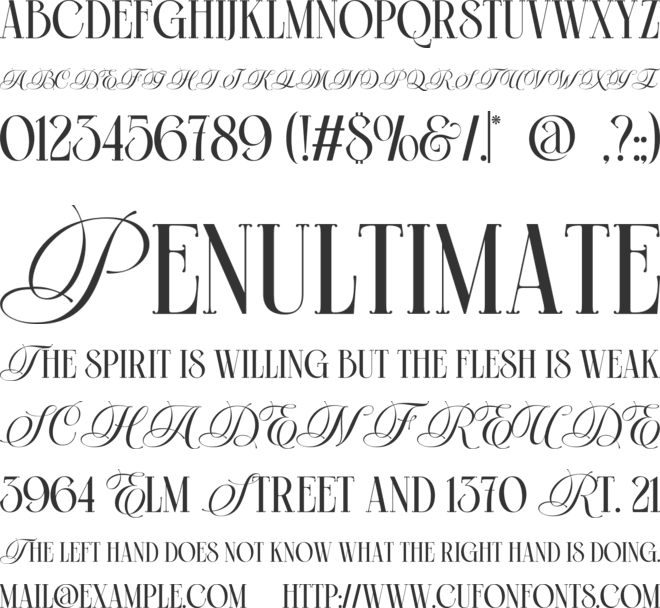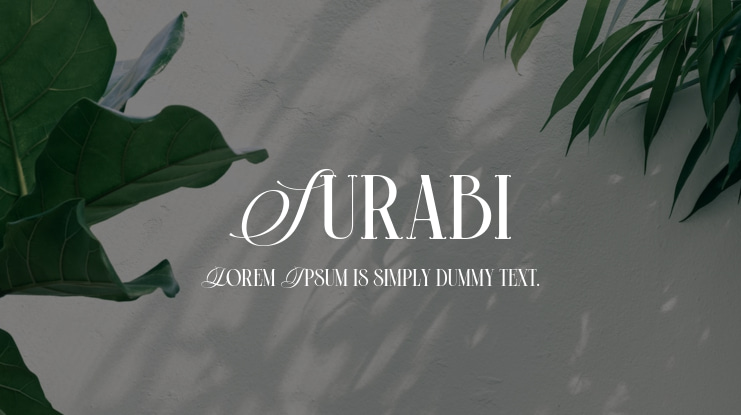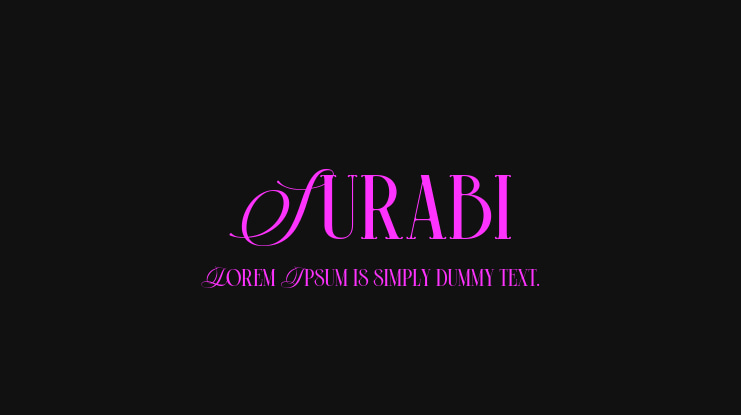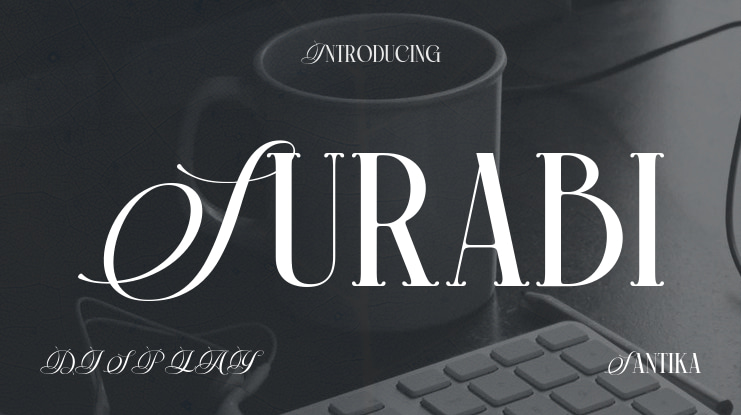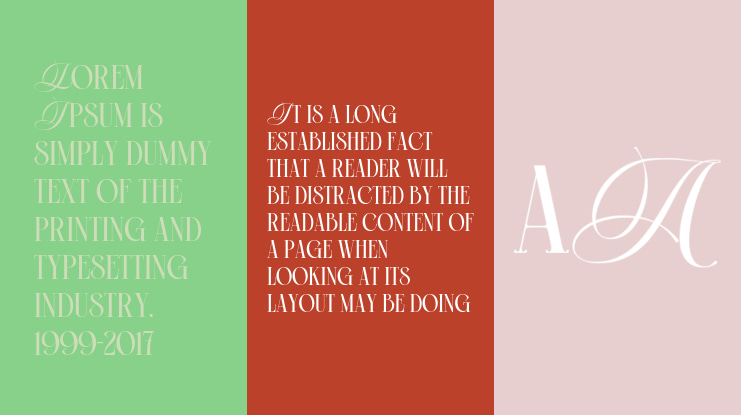
Surabi Font
Introducing Surabi, a hybrid typeface with extra ligatures. It is a perfect blend of classic serif elegance and script style. This typeface brings a unique charm and readability to any project. The extra ligatures seamlessly connect characters, adding a touch of sophistication and fluidity to your text. It is ideal for branding, invitations, editorial design, and more.